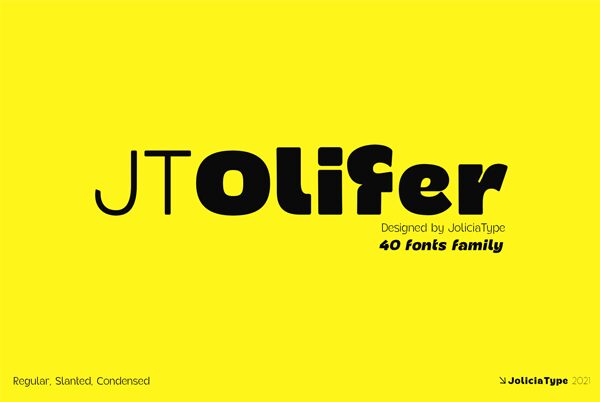
JTOlifer SemiBold is a wide, bold sans serif font designed by Laire Banyu Sandi Pawenang. Its strong presence makes it suitable for eye-catching titles and headlines, especially in projects seeking a modern and powerful feel. It's also perfect for logos, posters, print designs, and more.
JT Olifer is family font of Jolicia Type designed by Laire Banyu Sandi Pawenang in October 2021, JT Olifer inspired by Modern Typography developed by us in our perspective, with a typeface detail in every corner we make more rounded, and give an inktrap accent to make unique impression special in every glyph, we really consider about aspect legibility, therefore we make family font amount 40 to assist the selection according to visual needs.